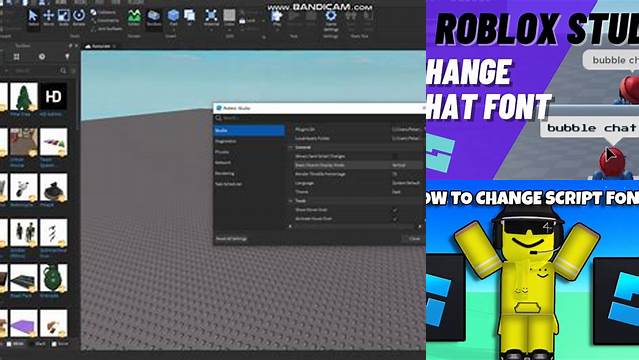
Change Fonts In Roblox Studio: A Beginner's Guide
Hey everyone! Ever wondered how to change fonts in Roblox Studio and make your games look super unique? Well, you're in the right place! Today, we're diving deep into the world of fonts in Roblox Studio, and trust me, it's easier than you might think. We'll cover everything from the basics to some cool customization tricks that will have your games standing out in no time. Let's get started and make those games pop with some awesome typography! Remember, the right font can completely transform the look and feel of your game, so let's get you equipped with the knowledge to make those choices.
Understanding the Basics: What are Fonts in Roblox Studio?
Alright, before we jump into the how, let's get a grip on the what. In Roblox Studio, fonts are basically the different styles of text you see in your game – think of them as the clothes your words wear. They determine the appearance of text on UI elements like buttons, labels, and text boxes. Changing fonts can dramatically alter the vibe of your game, whether you want something sleek and modern, or something whimsical and fun. Roblox Studio provides a library of pre-installed fonts, and understanding these is your first step toward creating visually appealing games. Each font has its own personality, and choosing the right one can significantly enhance the user experience. For example, a horror game might benefit from a font that appears scary or unsettling, while a kid-friendly game might use a more playful font. The choices are yours, and the possibilities are endless. Also, these fonts contribute significantly to the overall readability and aesthetics of your UI, ensuring players can easily understand the information presented. When you how to change fonts in Roblox Studio, you're opening doors to a whole new level of creative expression. It's not just about the words; it's about how those words are delivered.
Different Font Styles Available in Roblox Studio
Roblox Studio offers a variety of built-in fonts to get you started. These fonts cater to different aesthetic preferences, allowing you to match the style of your game with its gameplay and narrative. You'll find fonts that range from clean and minimalistic to elaborate and decorative. Understanding these options is the first step. Let's explore some popular types: UI Default: This is the standard font used by Roblox. It's clean and simple, making it a great default choice for general information and navigation. Source Sans Pro: A clean, modern font often used for displaying information clearly and professionally. It's great for games that prioritize readability. Arial: A classic and widely recognized font known for its clarity. It works well for various types of games and UI elements. Gotham: A geometric sans-serif font that is modern and versatile. It's a stylish choice for a variety of game genres. FontAwesome: A set of icons designed to look like fonts, allowing you to add icons to your UI. To take advantage of these, you might need to install a plugin or understand the code. Roboto: A slightly rounded sans-serif font that is easy on the eyes. Ideal for games that aim for a friendly, inviting atmosphere. Open Sans: A versatile and legible font that works well in many scenarios, making it a good choice for a wide array of UI needs. Knowing these options means you will have a much better understanding of how to change fonts in Roblox Studio.
Step-by-Step Guide: Changing Fonts on UI Elements
Ready to get your hands dirty? Here's a simple, step-by-step guide on how to change fonts in Roblox Studio on UI elements: First, open Roblox Studio and either create a new place or open an existing one. Next, locate the Explorer and Properties windows. If you don't see them, go to the 'View' tab at the top and check the boxes next to 'Explorer' and 'Properties'. Now, let's create or select a UI element. The easiest way to get started is by adding a ScreenGui to your StarterGui. Right-click on StarterGui in the Explorer and select 'Insert Object', then search for 'ScreenGui' and insert it. Inside the ScreenGui, you can add various UI elements like TextLabels, TextButtons, and ImageLabels. For this example, let's add a TextLabel. Right-click on the ScreenGui in the Explorer, insert an object, and search for 'TextLabel'. Now, select the TextLabel in the Explorer. In the Properties window, you'll see various properties you can modify. Look for the 'Font' property; it’s usually located under the 'Appearance' section. Click on the dropdown menu next to 'Font'. You'll see a list of available fonts. Select the font you want to use. You will see the change immediately in the TextLabel. You can repeat this process for other UI elements, experimenting with different fonts to find the look you like. And that’s pretty much it! It's that easy to how to change fonts in Roblox Studio. You can change the TextLabel's appearance further by adjusting properties such as TextColor3, TextSize, and TextStrokeColor3. The options are many! Remember, practice makes perfect, so feel free to experiment with different fonts and element combinations to achieve the desired aesthetic.
Modifying Font Properties for Customization
Now that you know how to change fonts in Roblox Studio, it's time to dive into customization. The Properties window holds the keys to further tweaking your font's appearance. Let's break down some essential properties: TextColor3: This determines the color of your text. Click on the color box, and a color picker will appear, allowing you to select any color you want. Experiment with different hues to find the perfect match for your game's theme. TextSize: This controls the size of your text. Adjust the number to make your text bigger or smaller. Play with the size to find a balance that is both readable and visually appealing. TextStrokeColor3: Adding a stroke around your text can make it stand out, particularly against busy backgrounds. You can choose the color of the stroke here. TextStrokeTransparency: Control how transparent the stroke is to make it look as if it blends or is solid. Font: The main property, as we've seen, lets you change the font style. TextScaled: If you set this to 'true', the text will automatically scale to fit the size of the UI element. This can be very helpful in responsive designs, and it's helpful to know when you're learning how to change fonts in Roblox Studio. By playing around with these properties, you can fine-tune the look of your text and create a cohesive and stylish UI. Keep in mind that the combination of font and properties will determine the overall look, so experiment with them together to get the best results.
Troubleshooting Common Font Issues in Roblox Studio
Even when you know how to change fonts in Roblox Studio, sometimes things don't go as planned. Here are some common font issues and how to troubleshoot them: Font Not Appearing: Make sure you're selecting a valid font option from the dropdown menu in the Properties window. If the font isn't there, double-check that you have spelled the font name correctly. Some custom fonts might have specific requirements or might not be supported. Text Overlapping or Clipping: If your text is too long for the UI element or if the size is too big, it may overlap or get clipped. Adjust the 'TextScaled', 'TextSize', or the size of the UI element itself. Try different alignment options (TextXAlignment and TextYAlignment) in the Properties window. Text Looks Blurry: Blurriness can be caused by the font size being too small or the UI element being scaled improperly. Increasing the 'TextSize' can resolve the problem. Check if the resolution of your UI element matches the resolution of your screen. Inconsistent Font Appearance Across Devices: Different devices may render fonts slightly differently. Test your game on multiple devices to make sure the font looks good across the board. Consider using 'TextScaled' to help your text adapt to different screen sizes. Error Messages Related to Fonts: If you encounter any error messages, carefully read what the error says and use the information to troubleshoot. Check the Roblox Studio output window for hints about the cause of the error. If all else fails, try restarting Roblox Studio and reloading your place. By knowing these tricks, you can be confident to how to change fonts in Roblox Studio!
Resolving Font Rendering Problems
Font rendering problems can be frustrating, but most are easily solved. If your text looks pixelated or blurry, increase the 'TextSize' of the text element. This often happens when text is scaled too small. If you find that the font is not rendering correctly on all devices, it may be due to the different resolutions and scaling capabilities of various devices. Make sure to test your game on a variety of devices to ensure that the font renders consistently. Sometimes, the UI is scaled incorrectly, causing the font to appear blurry. Check the scaling properties of your UI and adjust them as necessary. Additionally, ensure that your UI is correctly anchored to the screen by using the correct anchor points. How to change fonts in Roblox Studio isn't just about choosing the right font; it’s also about making sure it looks good on every device. Remember, clear and readable text is critical for a good user experience. Poor font rendering can make your game look unprofessional and difficult to navigate. By following these troubleshooting steps, you can ensure that your fonts always look their best.
Advanced Techniques: Custom Fonts and Scripting Fonts
Alright, now that we've covered the basics, let's level up! If you're feeling adventurous and want to push the boundaries of how to change fonts in Roblox Studio, you can explore custom fonts and scripting fonts. Using custom fonts lets you import fonts that aren't available in Roblox Studio's default library. This adds a unique touch to your game and gives you greater creative control. To use a custom font, you will need to find a font file (usually a .ttf or .otf file) that you have the right to use. Unfortunately, Roblox Studio does not directly support importing custom fonts. However, there are workarounds and ways to get creative. You can find tutorials and plugins that guide you through importing custom fonts. These methods often involve using image labels or other UI elements to display the custom font's characters. This will then let you script fonts. You can change font properties using scripts. This opens up a world of possibilities for dynamic UI changes based on game events or player actions. By learning some basic scripting, you can create interactive effects with your fonts. For example, you can make the text change color when a player hovers over a button or reveal text gradually with an animation. This adds a layer of interactivity that can truly elevate your game! Using scripts also allows you to make game texts customizable by players. Now, you can see the advantages of how to change fonts in Roblox Studio.
Implementing Custom Fonts in Your Roblox Game
While Roblox doesn't directly support importing font files, you can get creative. One popular method involves using images. First, you'll need to convert your font to a series of images. This can be done using various online tools or graphic design software. Each letter, number, and symbol is saved as a separate image. Next, you'll import these images into Roblox Studio. You'll use ImageLabels to display each character of your custom font. Finally, you'll use scripting to make the text appear. When you want to display text, the script will calculate the correct position of each character's image and display it in the right order. This method requires some initial setup, but it allows for a lot of customization. Another approach involves using pre-made UI kits or plugins. These kits often include custom fonts and pre-built UI elements that you can easily incorporate into your game. These are helpful if you are still learning how to change fonts in Roblox Studio. These plugins can save you time and effort. This ensures that you're able to include custom fonts. Always check the licensing and usage rights of the fonts before implementing them in your game. Using fonts with the proper rights is essential to avoid any legal issues. Always credit the font creator if required!
The Future of Font Customization in Roblox
What does the future hold for fonts in Roblox? As the platform continues to evolve, expect even more advanced font customization options. Roblox is always updating and introducing new features to improve the user experience. This is how the platform attracts more people. We might see more support for custom fonts, making it easier to import and use fonts that aren't in Roblox's library. Additionally, there may be more advanced text effects and animations. There will be more possibilities for dynamic UI changes based on game events and player actions. The potential for creative UI designs will be limitless. Learning how to change fonts in Roblox Studio will give you a head start. Now, you can stay updated on the latest news and announcements. Roblox developers often share updates and tips. Make sure to follow the Roblox developer forums. You can also explore third-party plugins and resources. These can help you incorporate custom fonts or advanced text effects into your games. The future is looking bright for font enthusiasts in Roblox! By staying curious and embracing new tools and techniques, you can stay ahead of the curve and continue to create stunning UI designs.